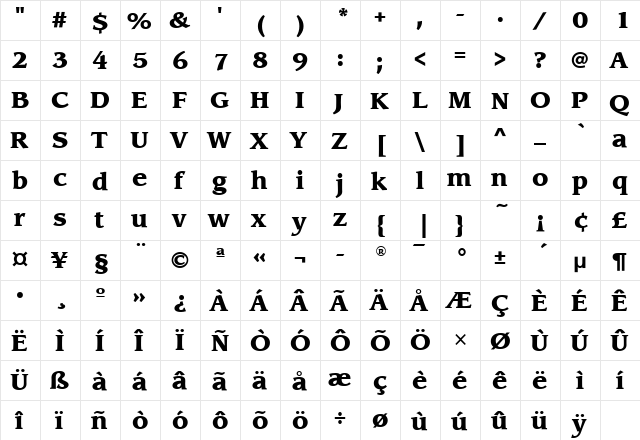
LeawoodMdITC Black Font Preview
LeawoodMdITC Black
LeawoodMdITC Black Font Details
Design Context for LeawoodMdITC Typeface
LeawoodMdITC echoes the hand-painted signage and woodblock typography of the American frontier, with a warm, rugged personality.
Perfect for barbecue restaurants, country music branding, vintage poster design, and rustic packaging.
Font Pairing: Combine LeawoodMdITC with a simple slab or neutral sans — period-accurate companions reinforce the vintage feel without competing for attention.
Pro Tip: Pair LeawoodMdITC with aged textures or distressed backgrounds to amplify its vintage personality.